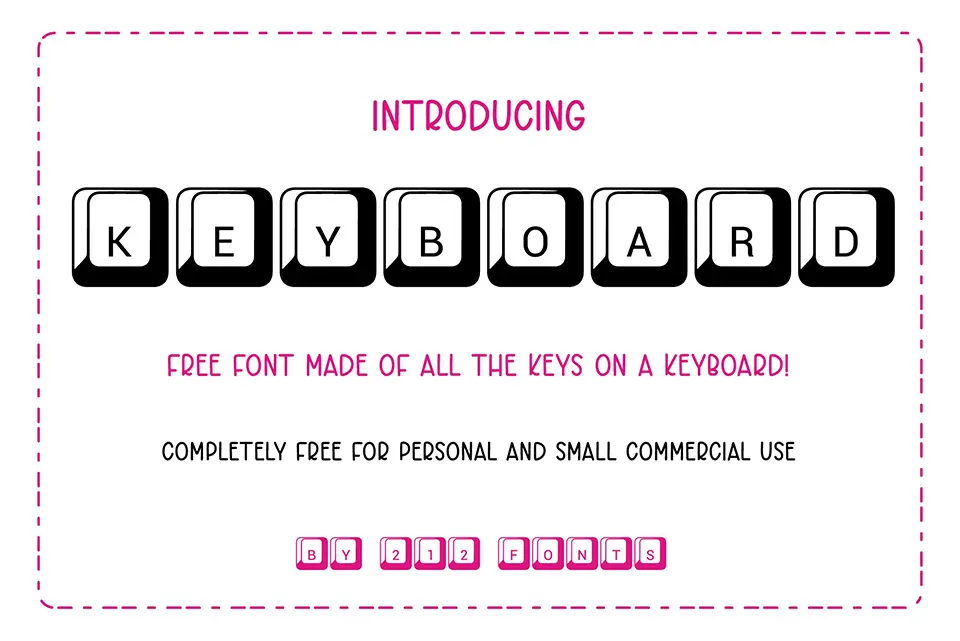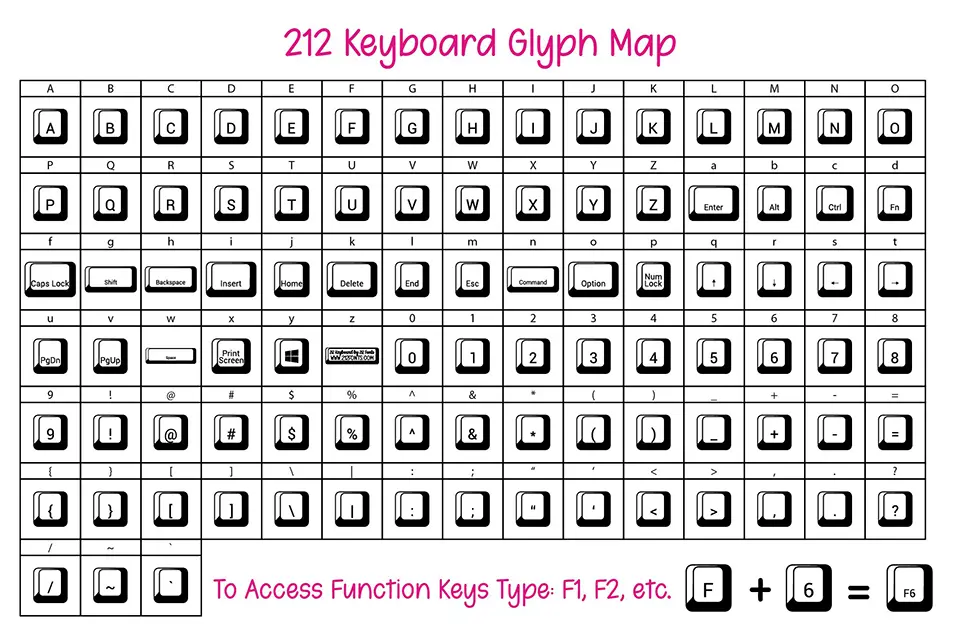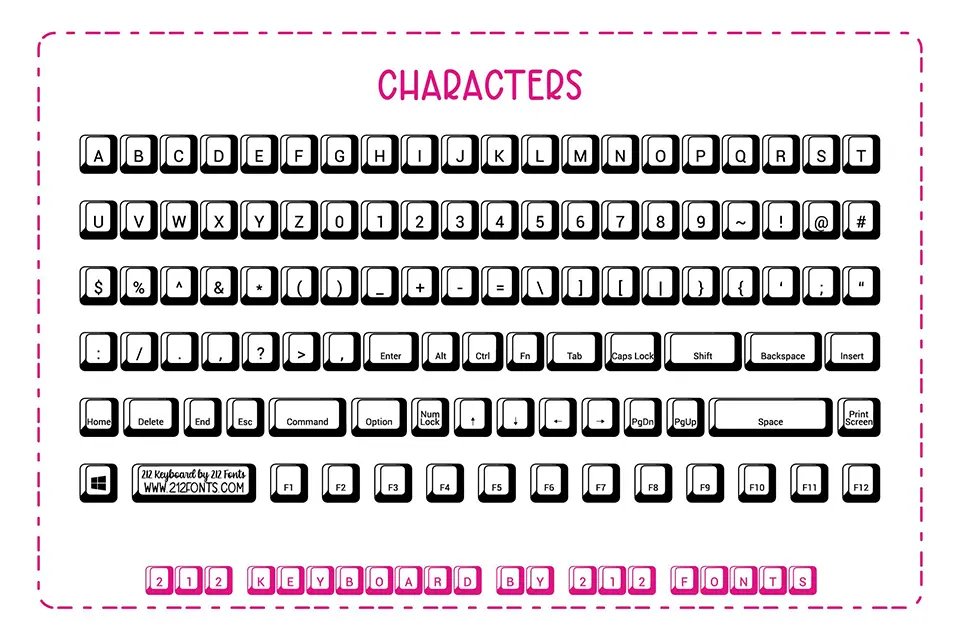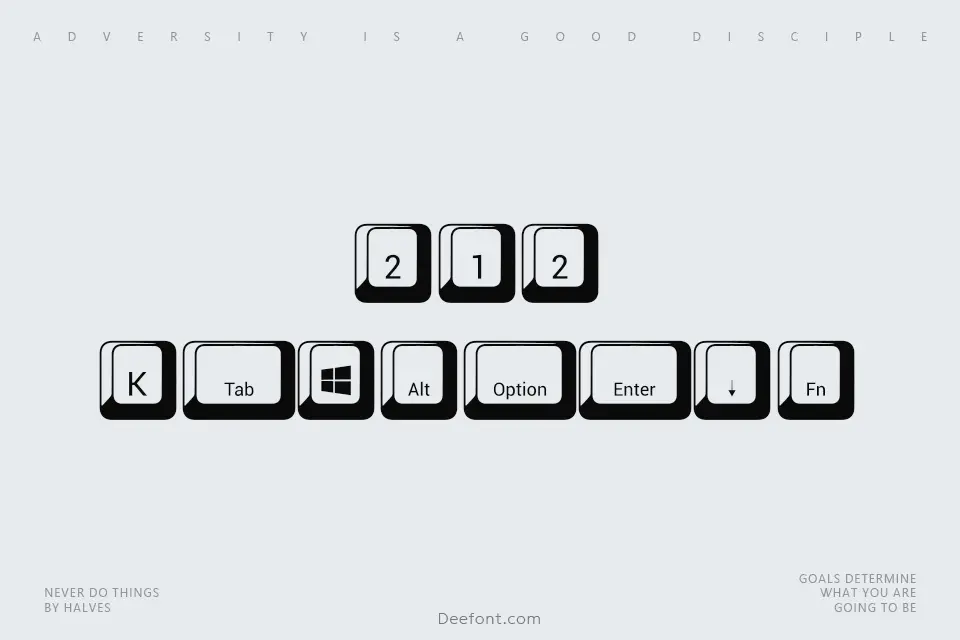
212 Keyboard Font
212 Keyboard Font is a creative typeface designed to replicate the look of computer keyboard keys. Developed by 212 Fonts and designed by Elizabeth McLain, this font features bold, square-shaped characters that mimic the tactile feel of physical keys. Ideal for tech-inspired designs, educational materials, or playful projects, the font adds a unique, modern touch to any layout. It supports multiple languages and is free for personal and small commercial use. Whether you’re a teacher, blogger, or designer, the 212 Keyboard Font offers a fun and functional way to make your text stand out with a technological flair.